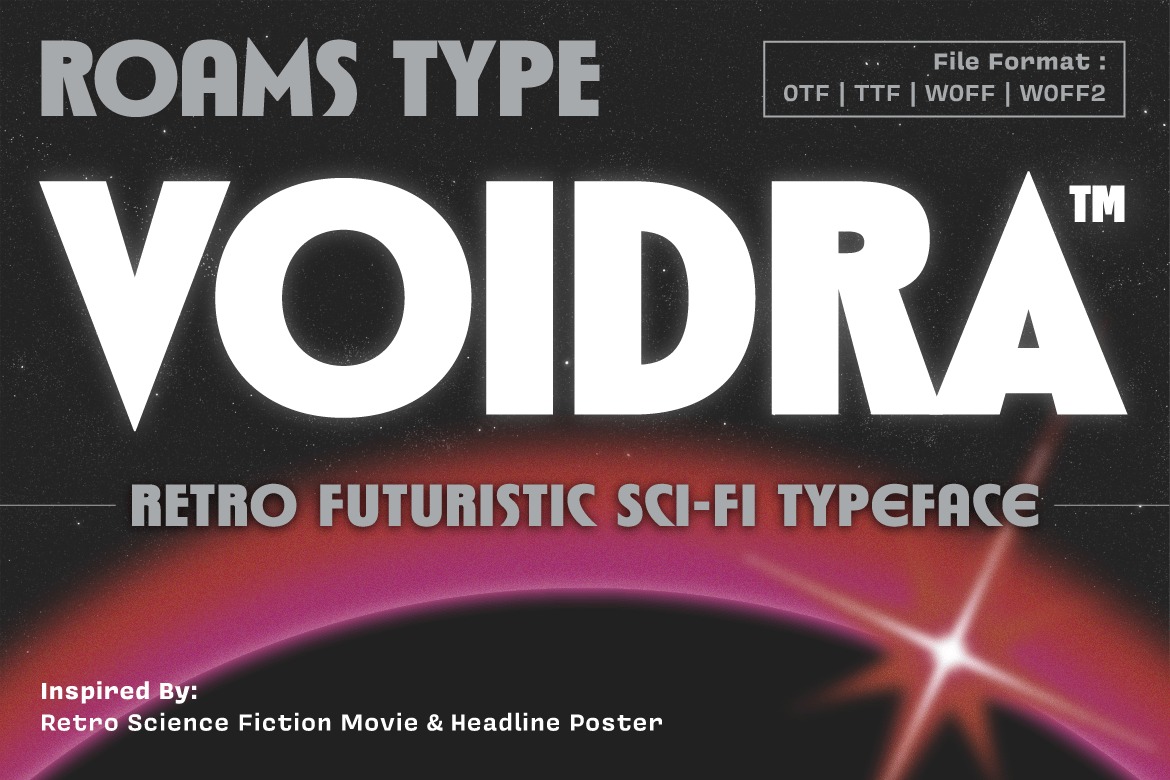
Voidra – Bold Sans Font
Voidra – Bold Sans Font is a stylish typeface that enhances visual appeal and works effortlessly in many design contexts. Voidra is a bold futuristic display typeface inspired by retro sci-fi aesthetics and modern minimal forms. Designed to create strong visual impact, this typeface combines clean geometry with subtle vintage energy, making it perfect for standout headlines and branding projects. With its sharp structure and confident presence, Voidra delivers a powerful typographic voice while staying versatile and easy to use.